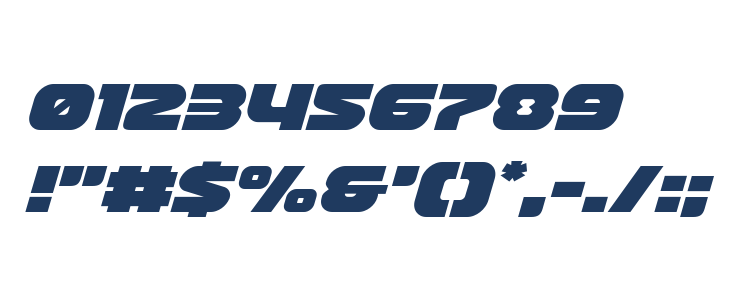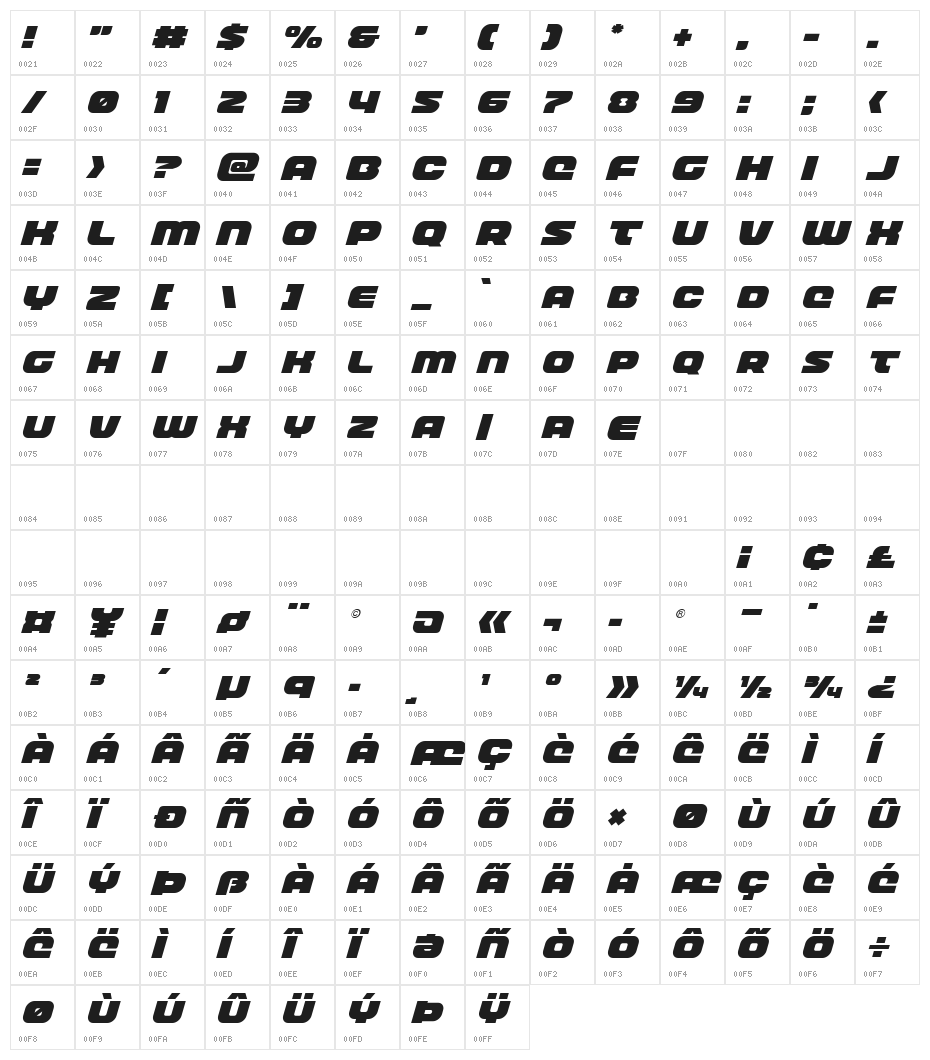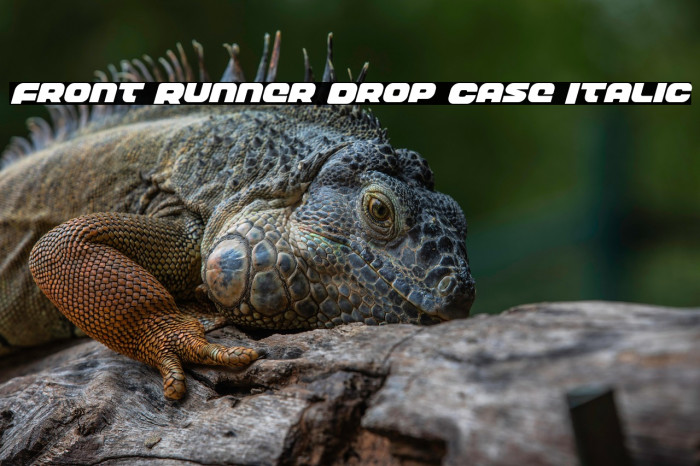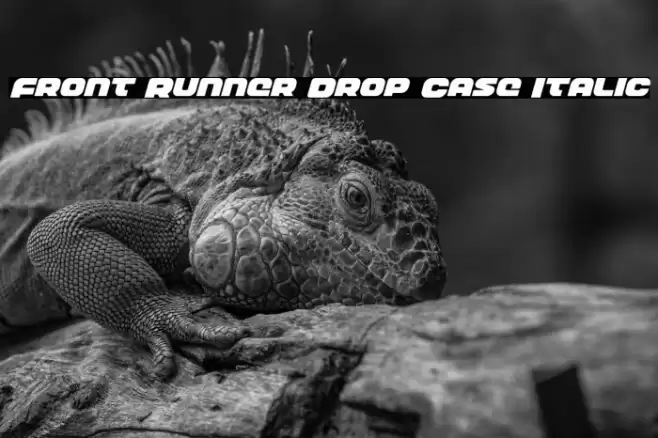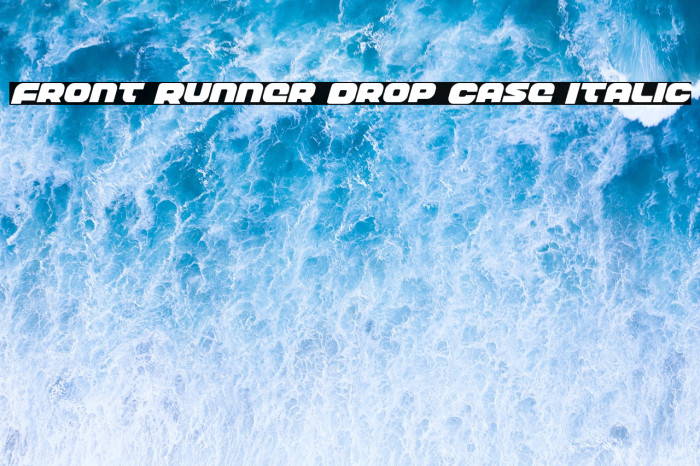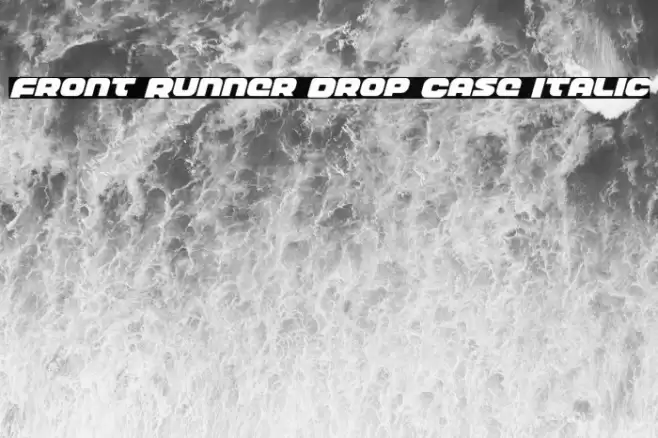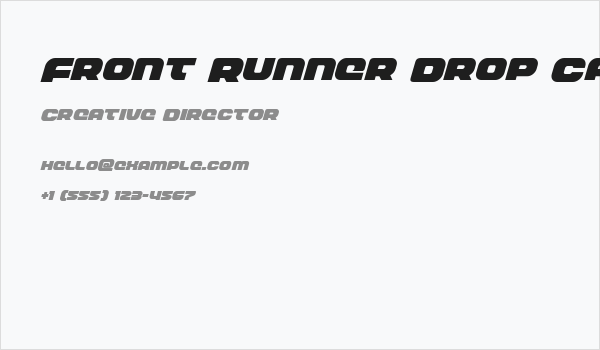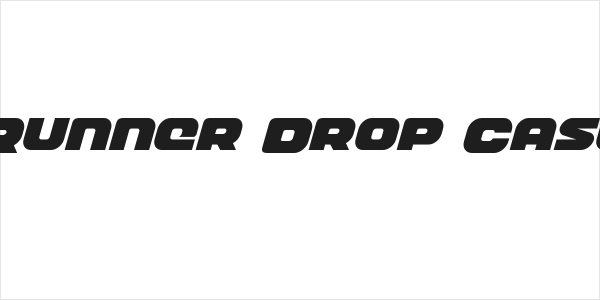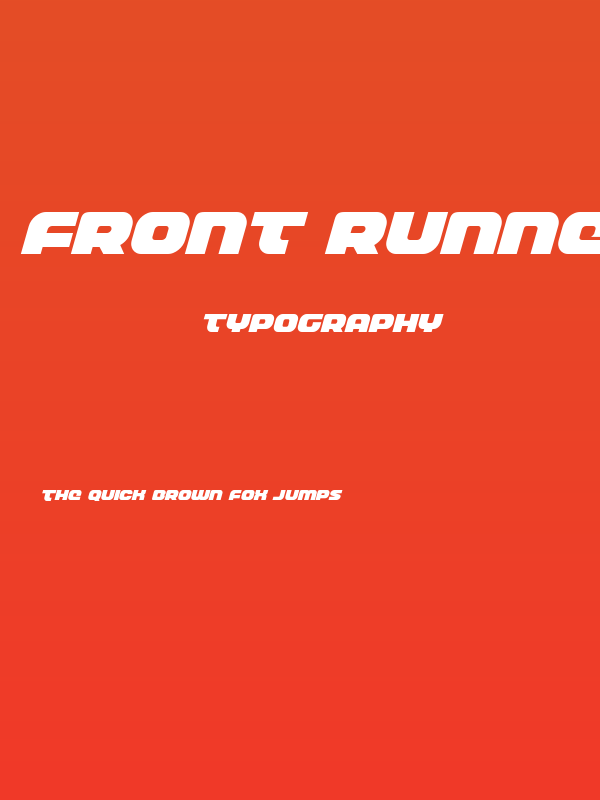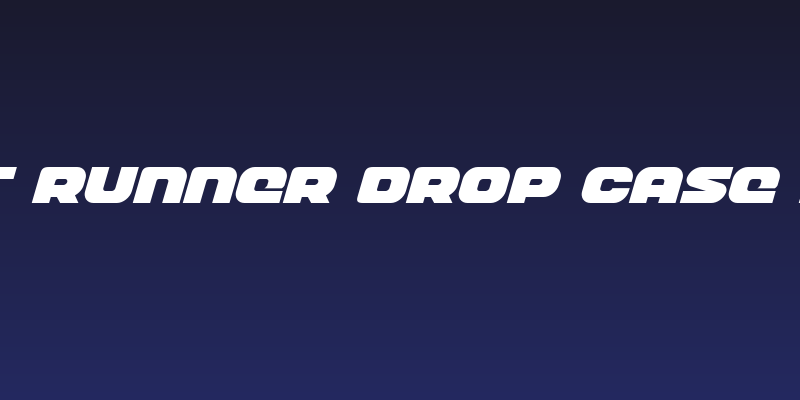
Front Runner Drop Case Italic Font
Front Runner Drop Case Italic Description
This font features a bold and dynamic style with a strong italic slant, giving it a sense of motion and energy. The characters are wide and have a slightly condensed appearance, contributing to a compact and impactful look. The strokes are thick and consistent, providing a high contrast that enhances readability. The overall design is modern and sleek, making it suitable for projects that require a bold statement. The uppercase and lowercase letters are uniform in style, maintaining a cohesive appearance throughout. The numerals and special characters are designed to match the bold and italicized aesthetic, ensuring consistency across all text elements.
| Proposed Projects | Ideal for sports branding, dynamic posters, automotive advertisements, and any project needing a bold, energetic typeface. |